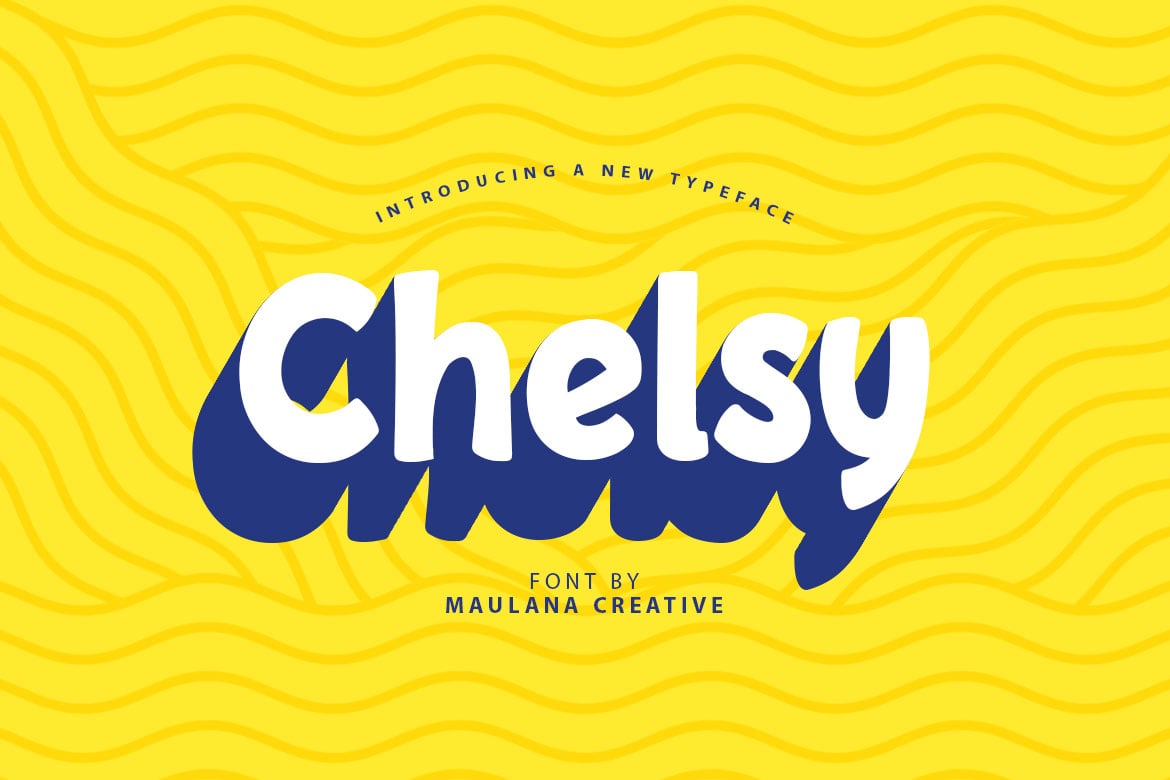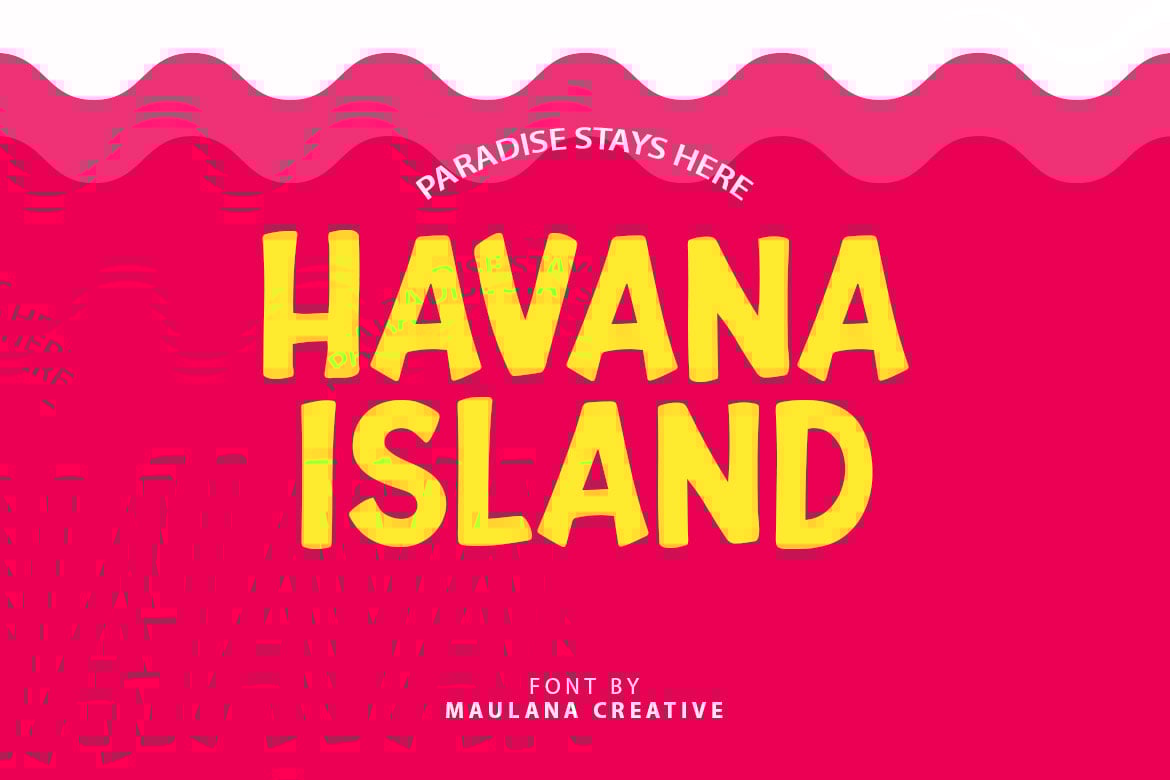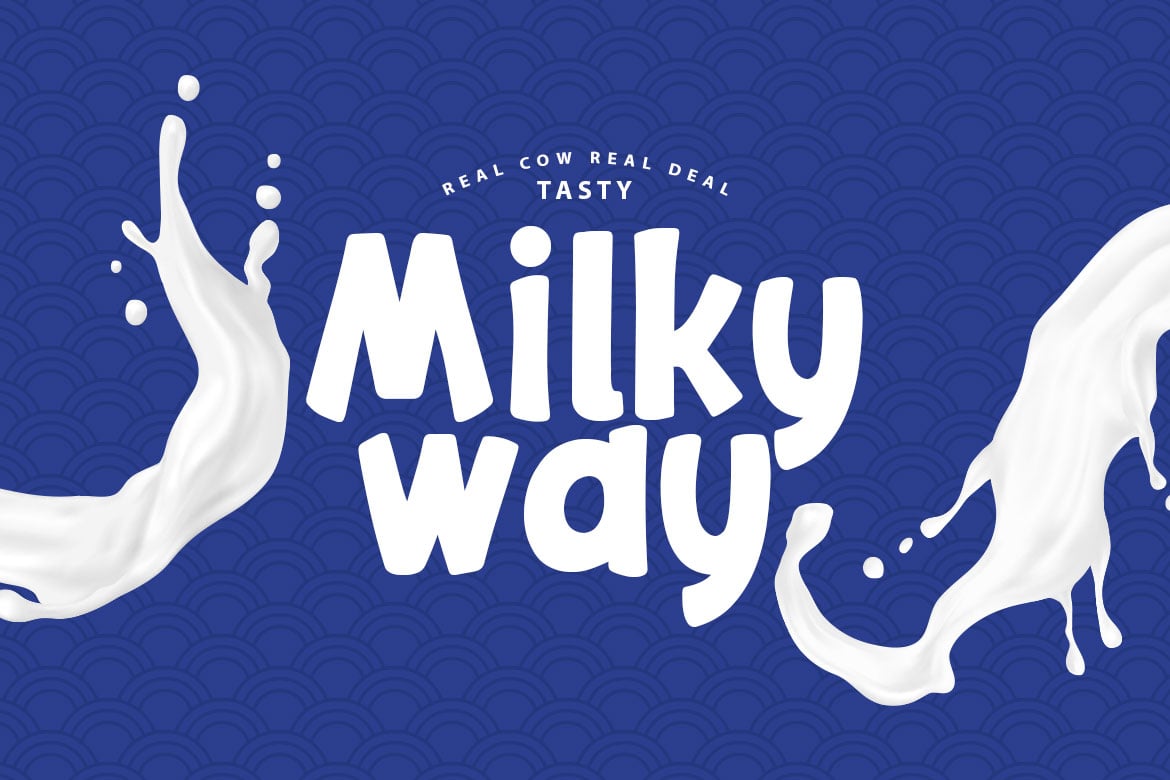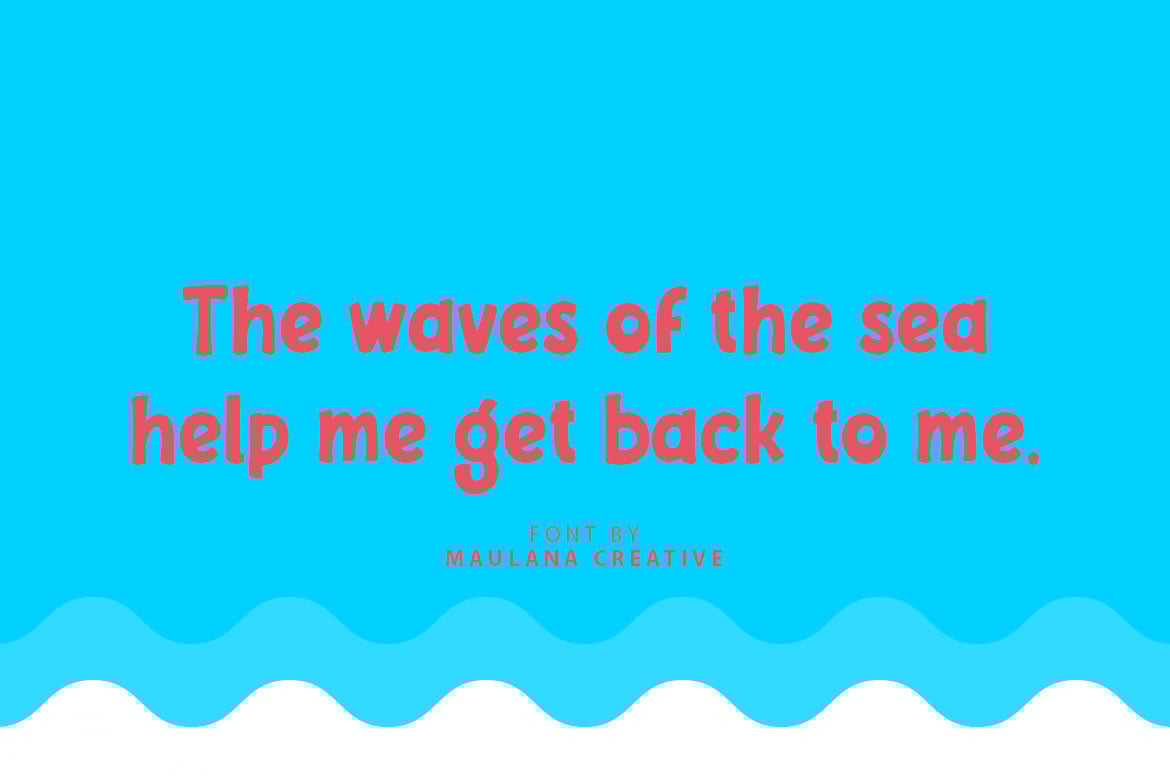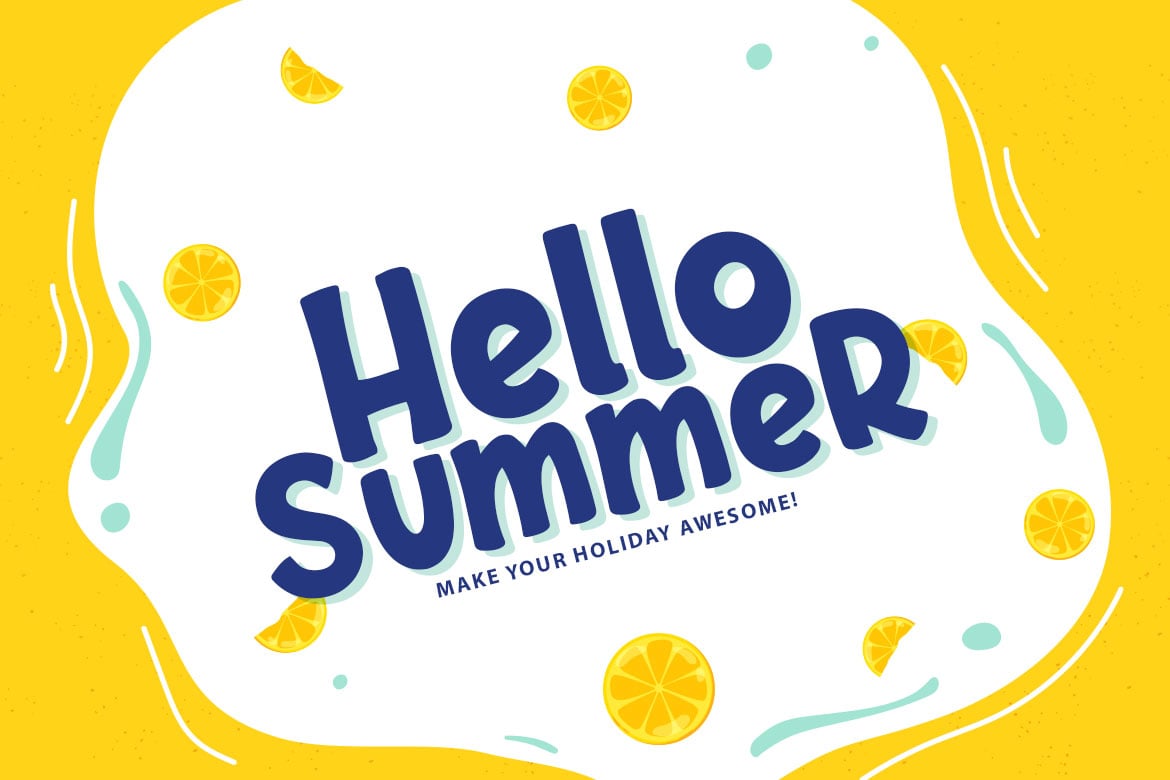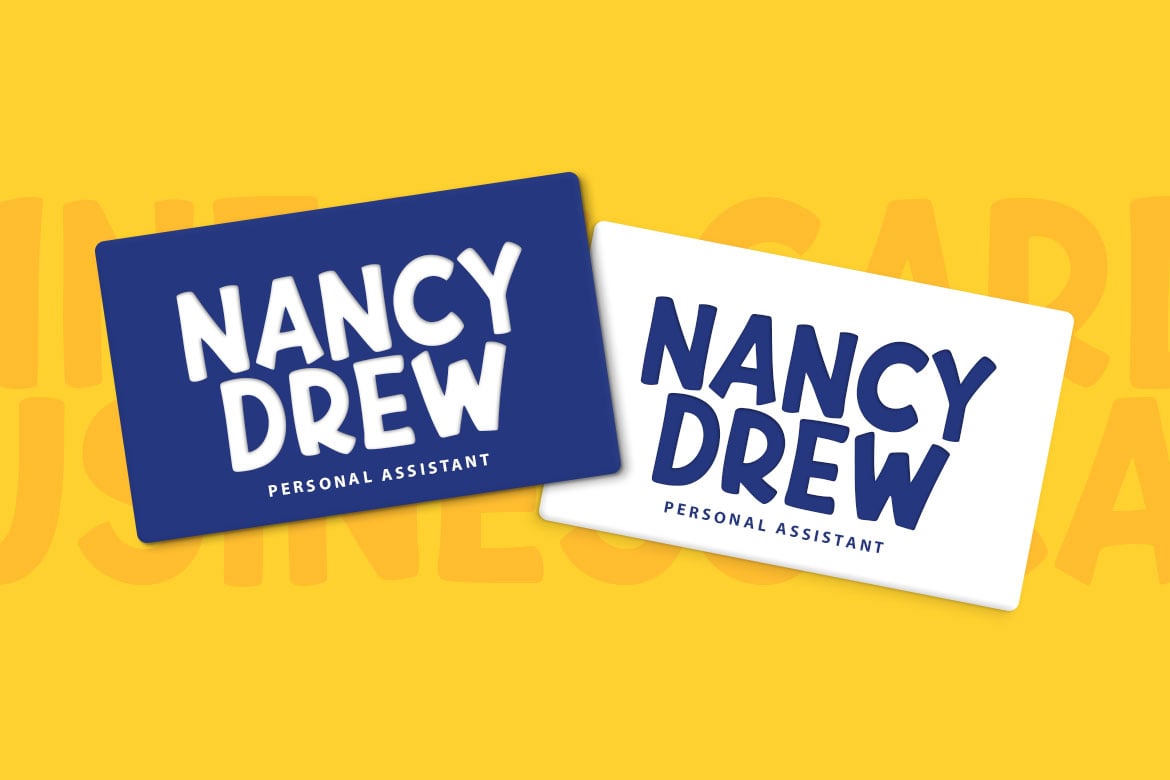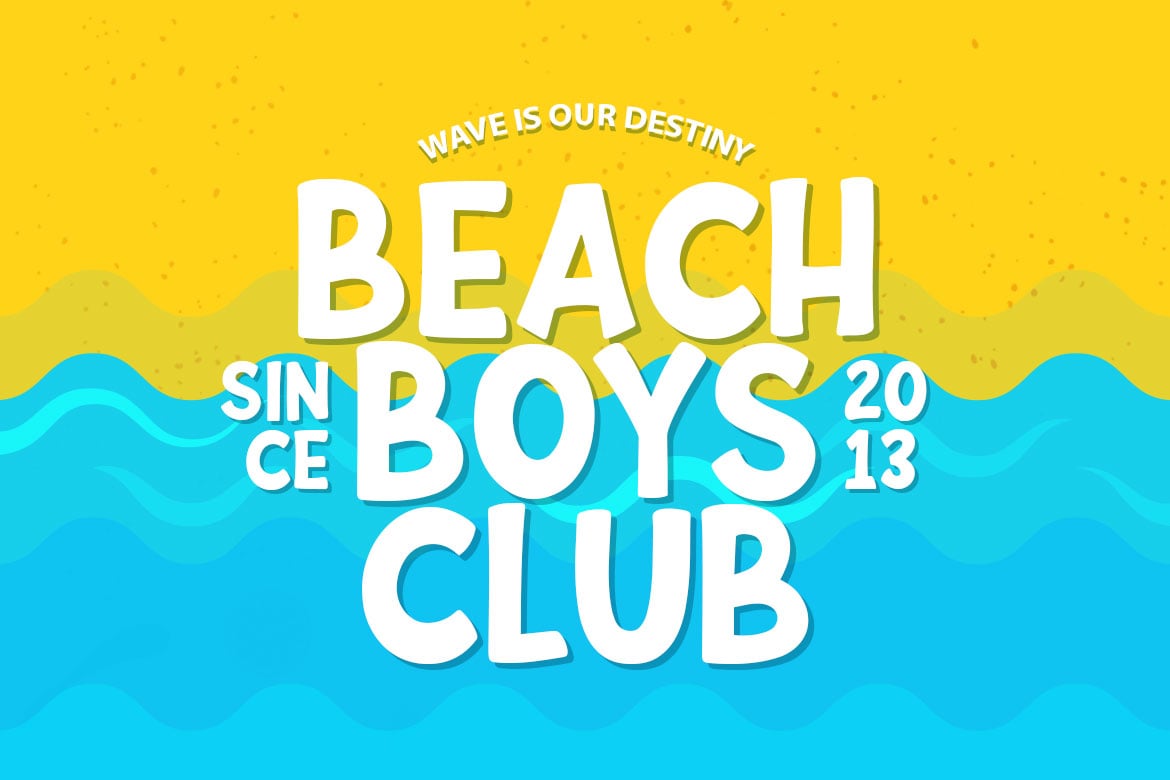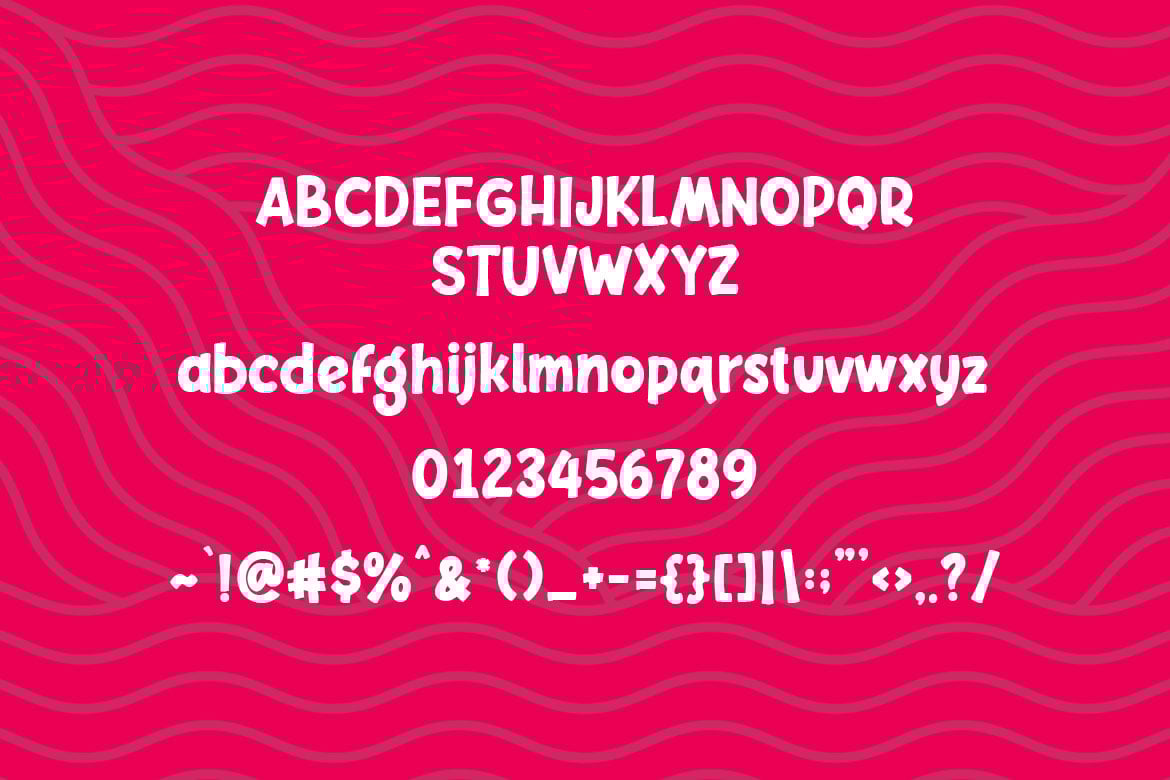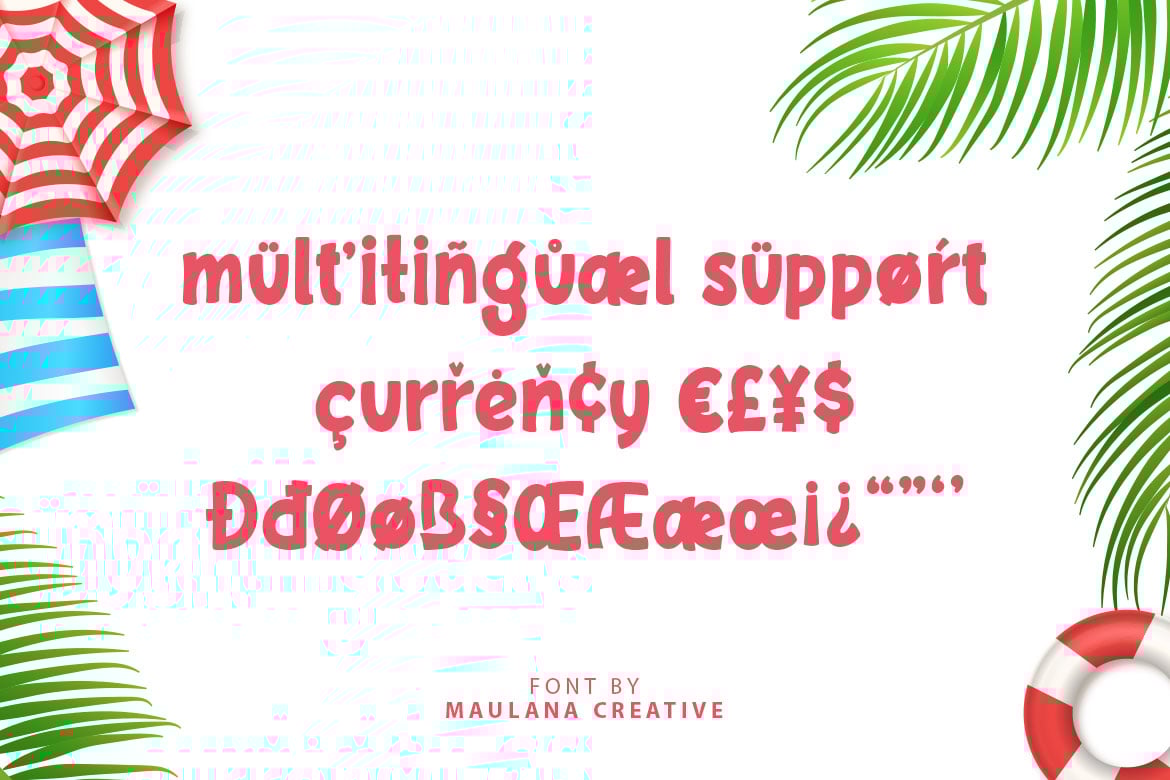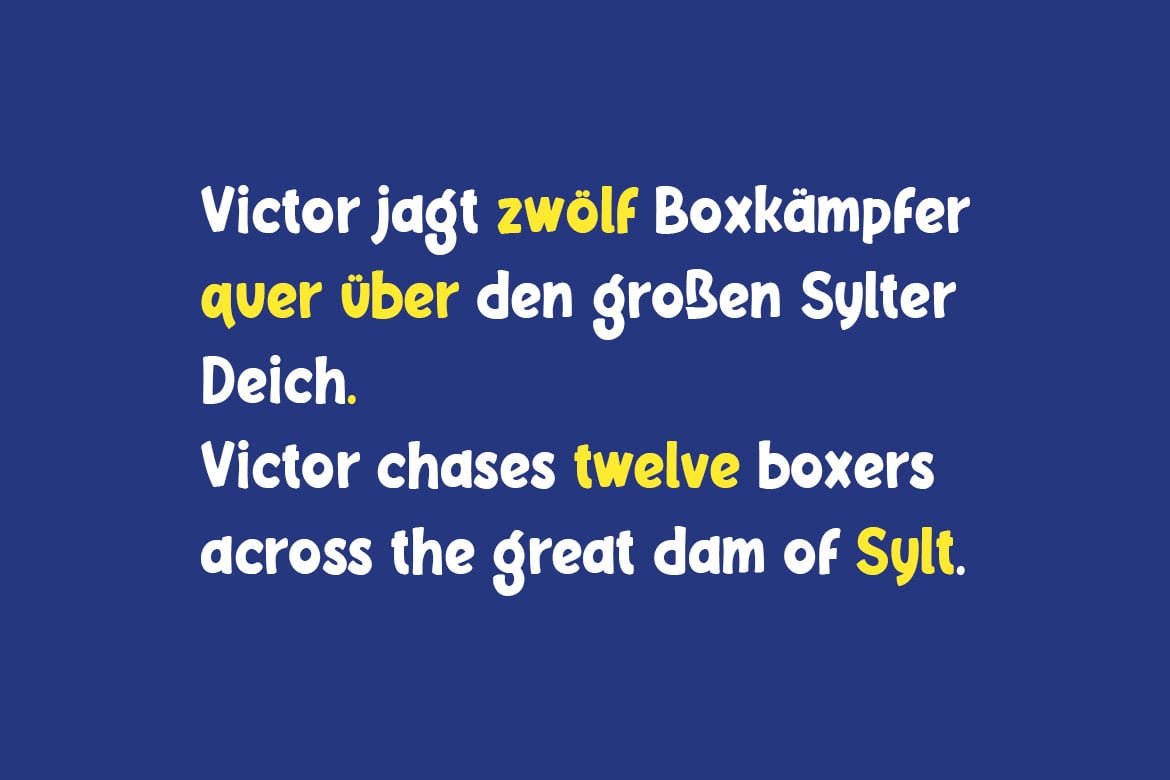
Chelsy – Cute Font Sans
Chelsy is a handwritten sans serif font. This font is very simple and fun to use! Chelsy is perfect for create a quotes, logo, badge, insignia, packaging, headline, poster, t-shirt/apparel, greeting card, wedding invitation and more. This Chelsy font include multilingual language.